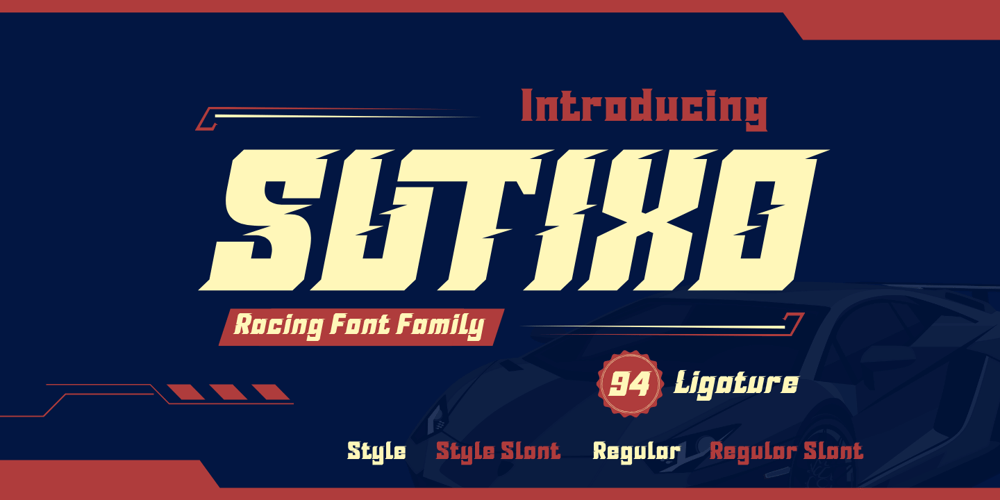
Sutixo Font Family was designed by Rozikan and published by Twinletter. Sutixo contains 4 styles and family package options. Sutixo is the font for speed enthusiasts. Designed with the sports racing theme in mind, this font is perfect for creating bold and attention-grabbing designs. It comes with four variations, each with its own distinct style, and various alternate characters and ligatures to take your plans to the next level. Whether you’re creating graphics for a motorsport event or simply want to add a touch of excitement to your branding, Sutixo is the font you need. So gear up and get ready to race with Sutixo!What’s Included :- File font- All glyphs Iso Latin 1- Alternate, Ligature- Simple installations- We highly recommend using a program that supports OpenType features and Glyphs panels like many Adobe apps and Corel Draw so that you can see and access all Glyph variations.- PUA Encoded Characters – Fully accessible without additional design software.- Fonts include Multilingual support